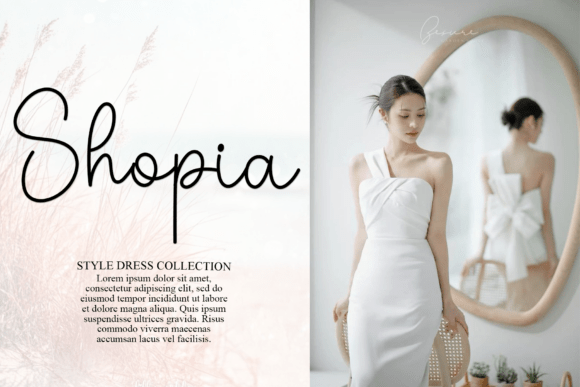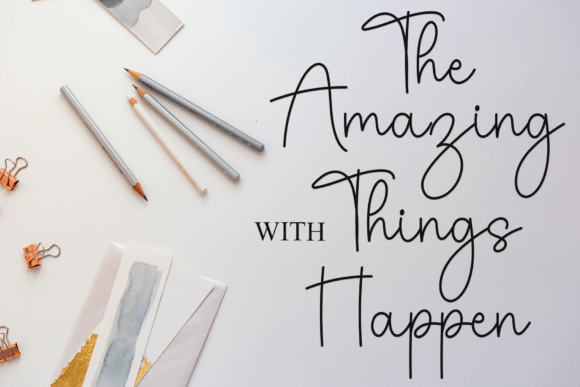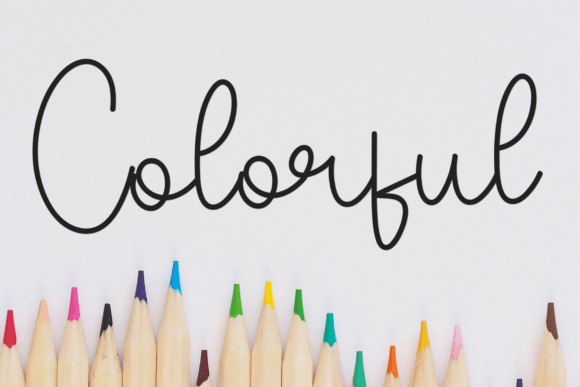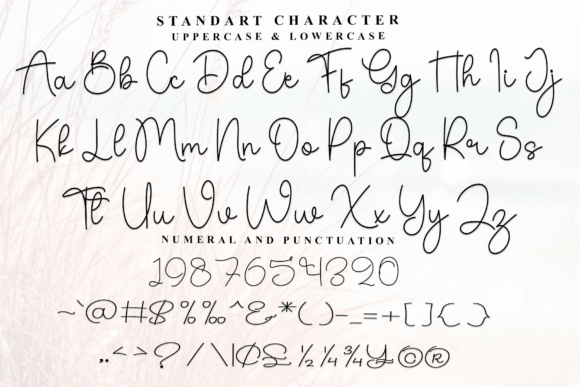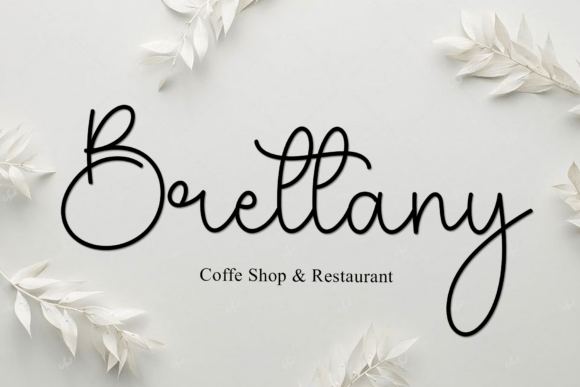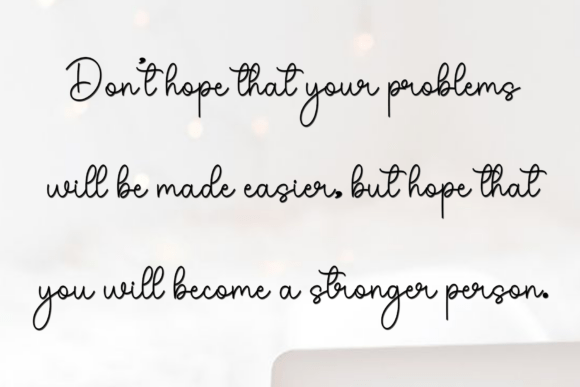
Beach Smilling Font – Free Download
Introduction to Beach Smilling Font
Beach Smilling is a casual and creative font that exudes warmth and friendliness.
Key Features of Beach Smilling Font
Why Choose Beach Smilling Font?
Beach Smilling Font offers exceptional quality and versatility, making it a valuable addition to your design toolkit. Whether you’re creating for personal projects or commercial use, Beach Smilling Font delivers professional results.